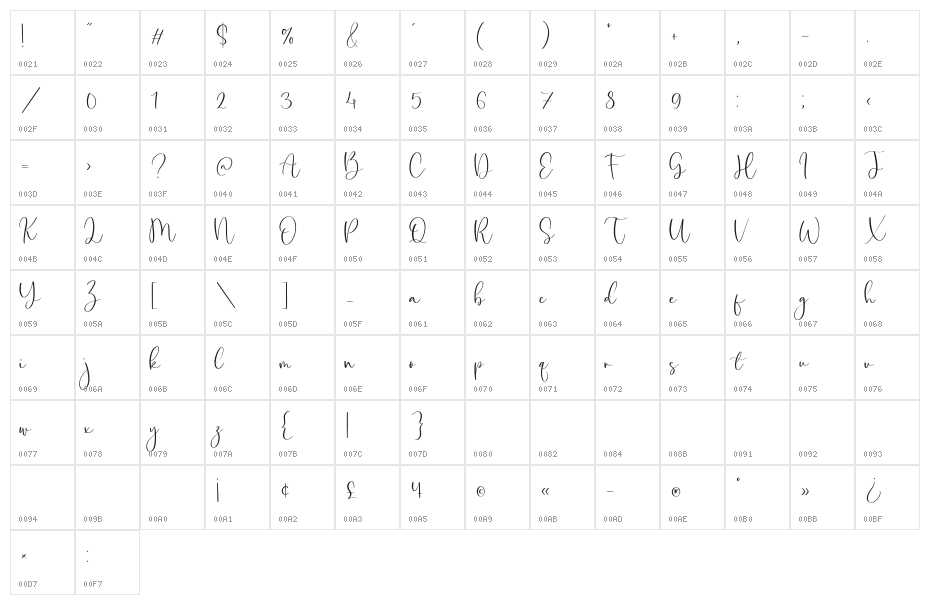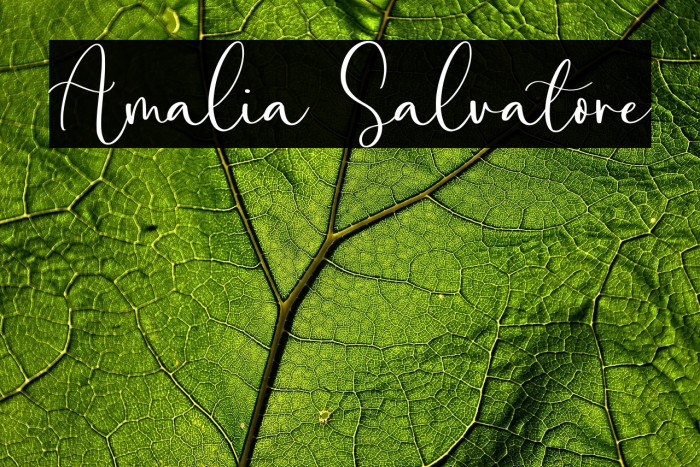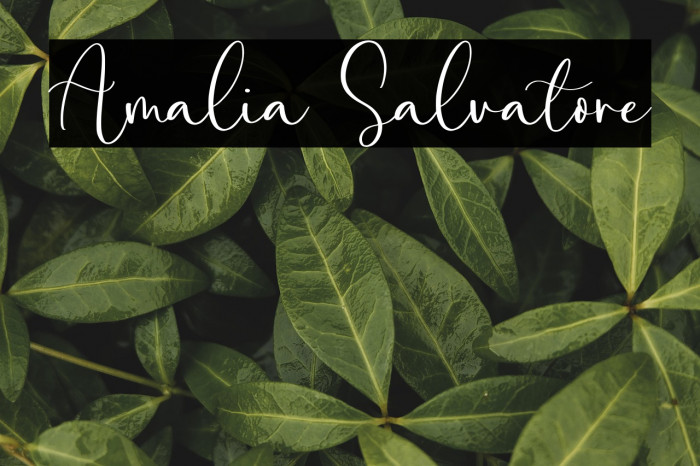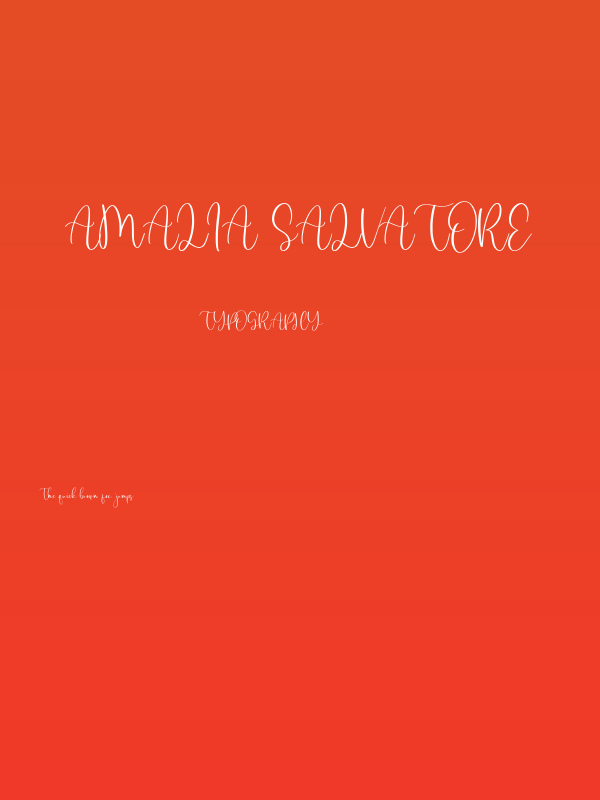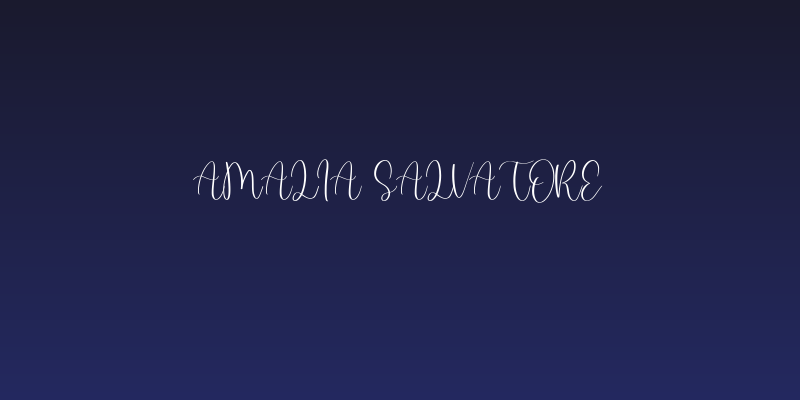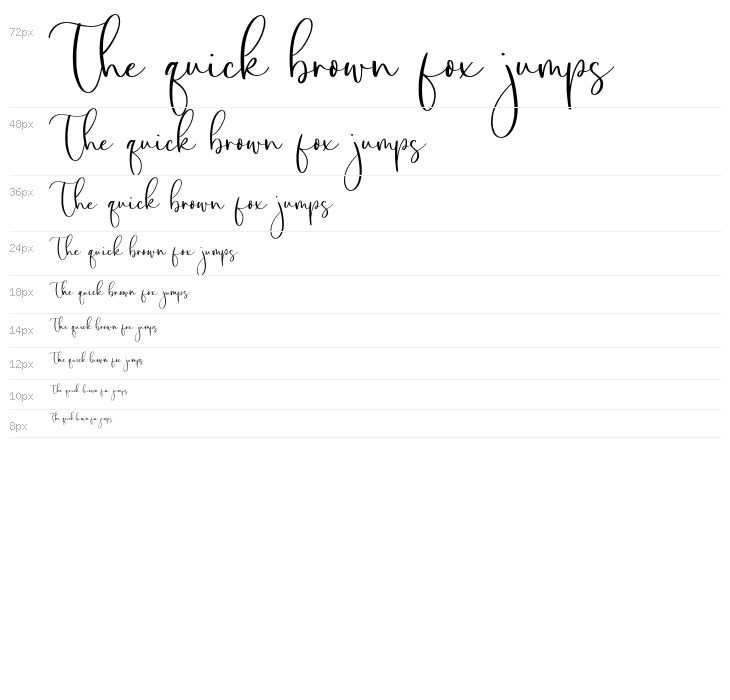
Amalia Salvatore Font
Amalia Salvatore Description
This font exudes elegance and sophistication with its flowing, cursive style. The letters are intricately designed with smooth curves and delicate loops, giving it a handwritten appearance. The uppercase letters are particularly ornate, with exaggerated flourishes that add a touch of drama. The lowercase letters maintain a consistent style, with gentle slants and rounded forms. The numerals are clear and stylish, complementing the overall aesthetic. Special characters are thoughtfully crafted, maintaining the font's graceful and artistic feel. This font is perfect for projects that require a personal, elegant touch.
| Overall Style | Elegant, Handwritten |
| Use Case | Logos, Invitations, Personal Stationery |
| Proposed Projects | Ideal for wedding invitations, greeting cards, elegant branding, and personal stationery. |